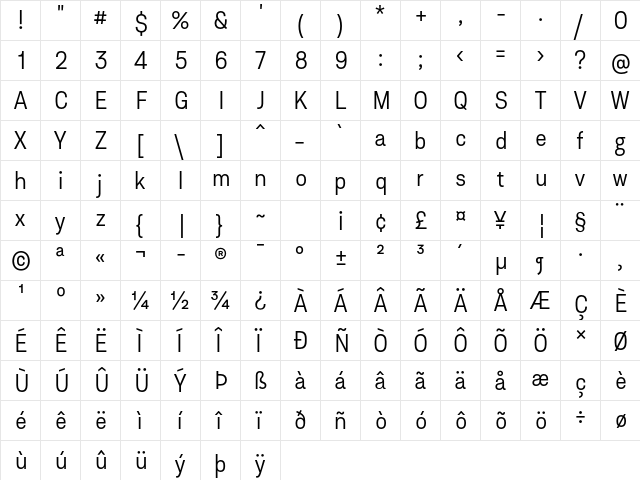
Asket Narrow Light
| Foundry | Glenjan |
| Designer | Glenjan |
Design Context for Asket Narrow Typeface
Asket Narrow is a composed and adaptable typeface that performs quietly and consistently across a wide range of design contexts. The delicate stroke weight brings airiness and refinement to layouts. The condensed width makes it efficient for tight spaces without sacrificing legibility.